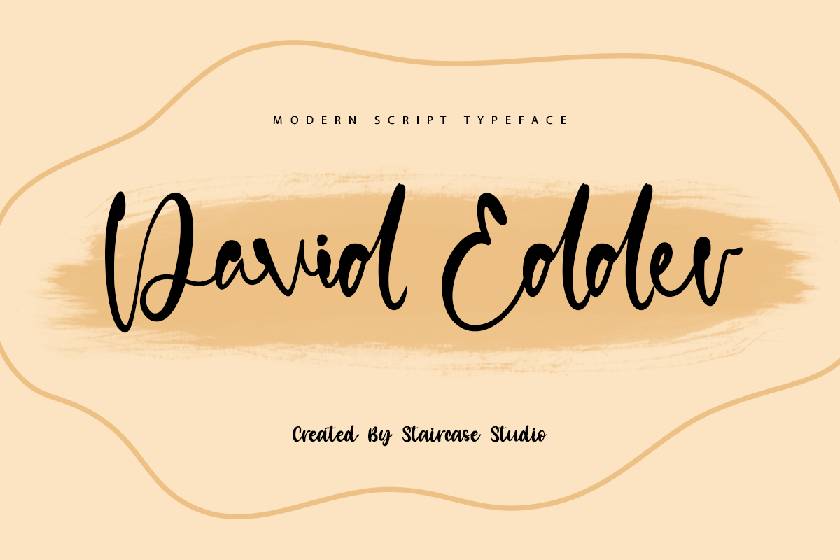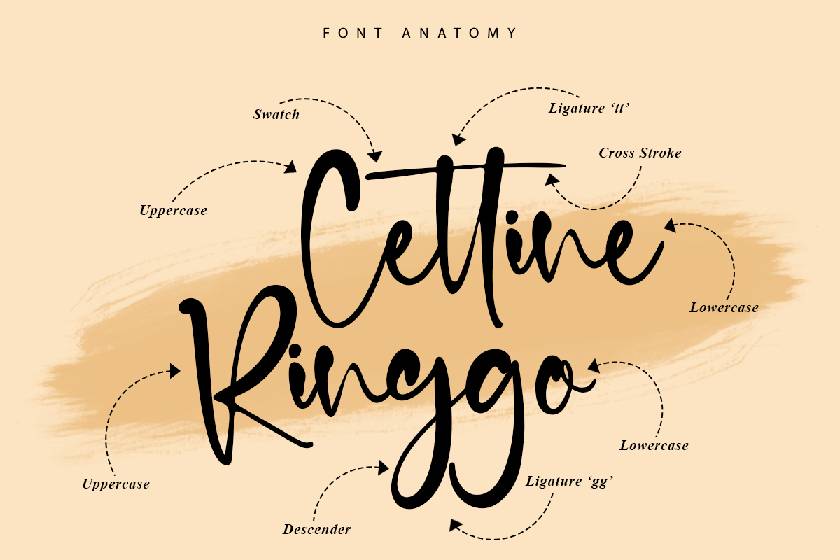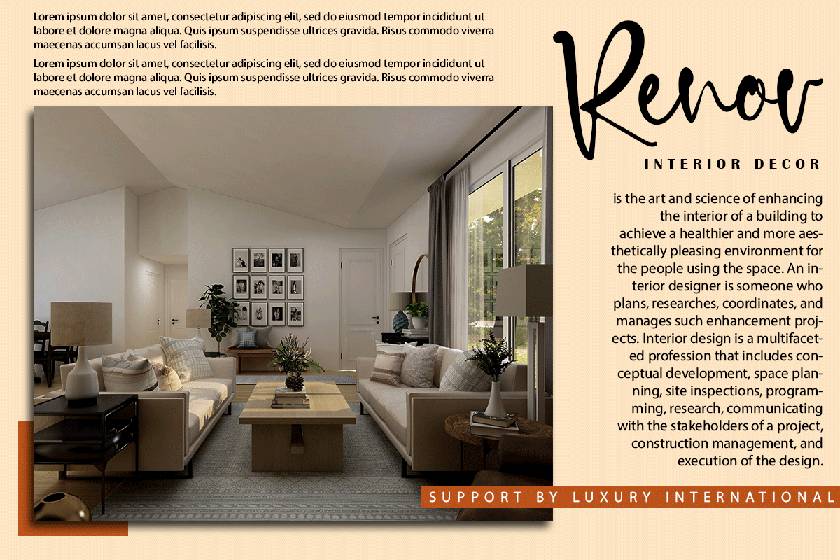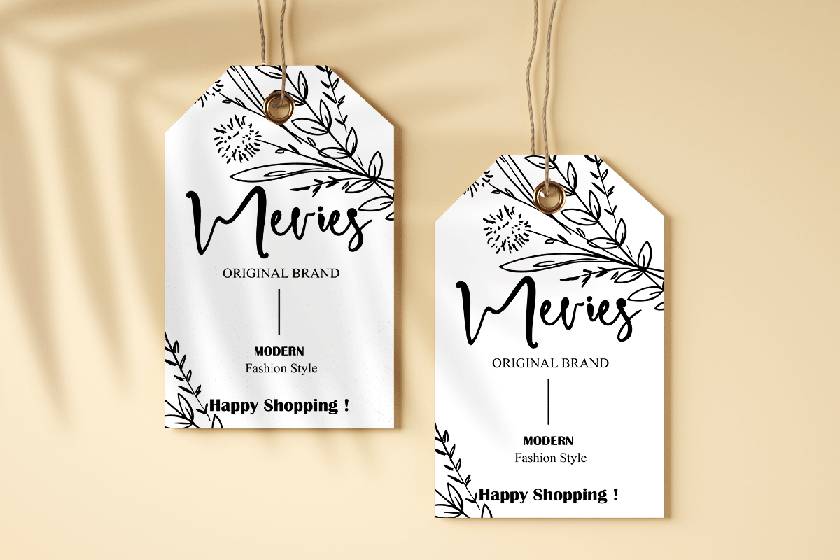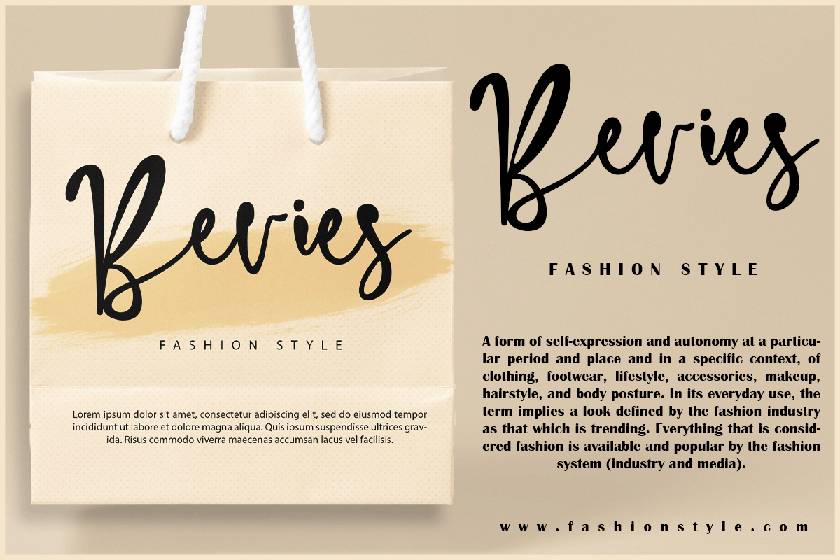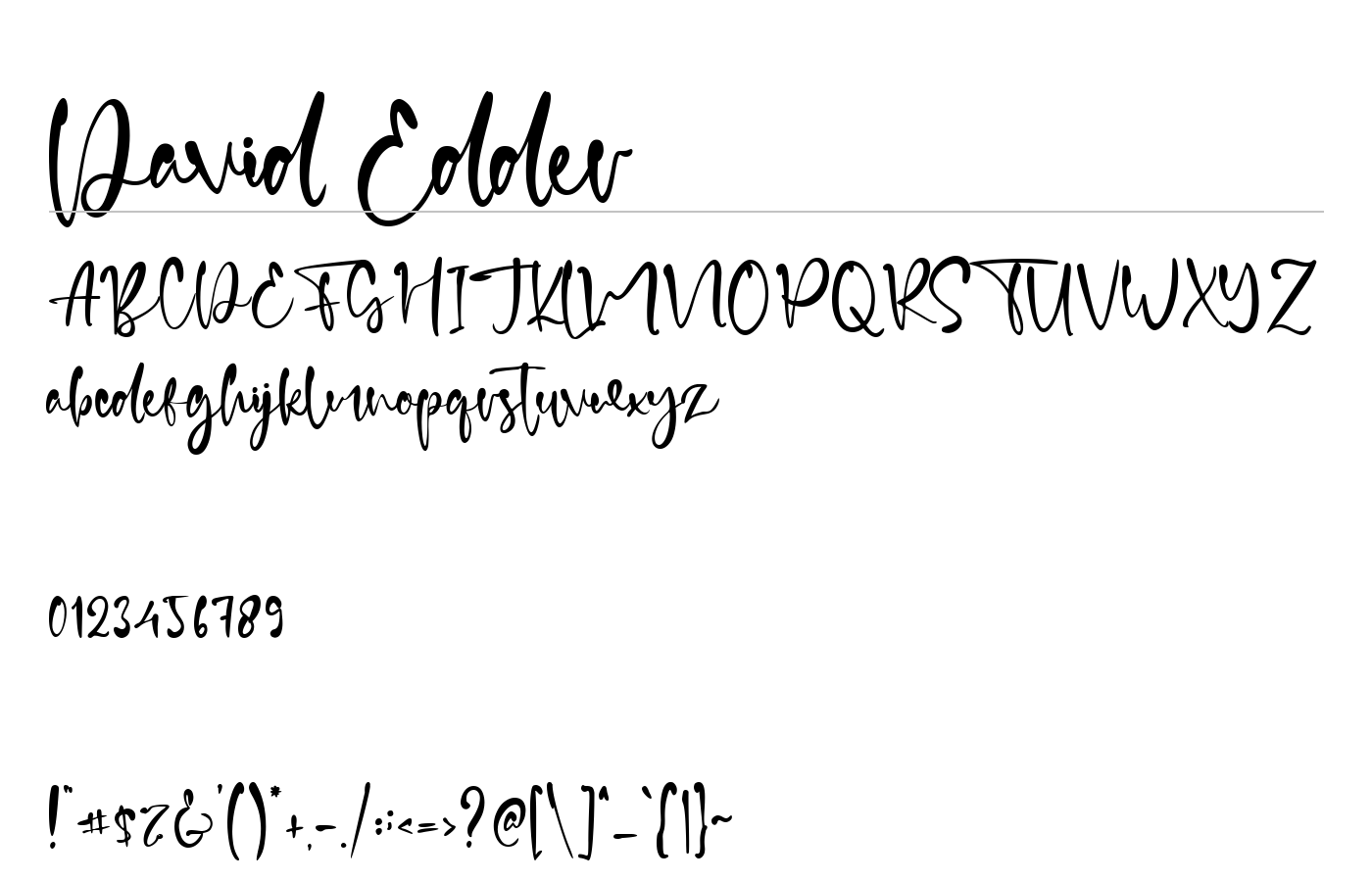
David Edder is a lively and expressive script font featuring a casual, handwritten style with varying stroke weights that add a playful yet personal touch. Its tall, narrow letterforms with fluid connections and slightly irregular shapes give it a charming and friendly character, perfect for creative branding, invitations, and social media designs where a warm, approachable feel is desired. This font works best in display uses where its personality can shine without sacrificing legibility.
David Edder Font
About David Edder Font
| Font family | David Edder Font |
| Designer | Staircase Studio |